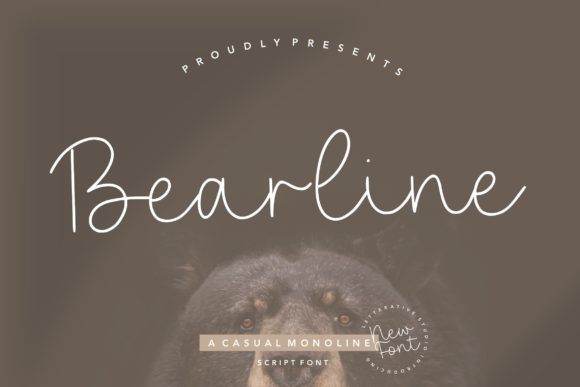
Bearline: A Modern Monoline Script Font for Creative and Professional Use
The Evolution of Script Fonts in Contemporary Design
In the ever-evolving world of typography, script fonts have remained a staple for their elegance and expressive potential. However, traditional script fonts often come with challengesāsuch as legibility issues or an overly ornate appearanceāthat can hinder their practical use in professional settings. Enter Bearline, a casual monoline script font that bridges the gap between classic calligraphy and modern design needs. With its clean lines and balanced form, Bearline offers a fresh take on script typography while maintaining the sophistication of handwritten styles.
Designed to be both versatile and readable, Bearline is ideal for a wide range of applicationsāfrom branding materials and website headers to personal stationery and educational resources. Its monoline structure ensures consistency across characters, making it easier to read at various sizes compared to more fluid, cursive scripts. This makes Bearline not only visually appealing but also functionally sound in real-world scenarios.
Key Characteristics of Bearline
At first glance, Bearline appears to be a simple script font, but a closer look reveals thoughtful design choices that contribute to its usability and aesthetic appeal. Here are some of its defining features:
- Casual yet Classy Style: Bearline captures the essence of handwritten text without sacrificing professionalism. It feels personal and approachable, yet refined enough for formal contexts.
- Monoline Structure: Unlike traditional script fonts that vary in stroke width, Bearline uses consistent line thickness throughout. This enhances readability and ensures visual harmony in any layout.
- Versatile Character Set: The font includes a comprehensive set of characters, accents, and symbols, supporting multiple languages and special typographic needs.
- Scalability: Whether used in small body text or large display headings, Bearline maintains its clarity and elegance, making it suitable for both print and digital media.
Applications of Bearline in Real-World Projects
Bearline's adaptability allows it to serve a variety of purposes across different industries. Letās explore how this font can be applied in practical scenarios:
Professional Branding and Marketing Materials
For businesses looking to create a brand identity that feels both modern and trustworthy, Bearline is an excellent choice. Its clean, uncluttered style works well for logos, business cards, and marketing collateral. For instance, a boutique hotel might use Bearline for its letterhead to convey a warm, inviting atmosphere while maintaining a polished look.
Additionally, Bearline can be used effectively in email signatures, social media posts, and promotional banners where a friendly yet professional tone is desired. Its ability to blend casual charm with contemporary design makes it a go-to option for creative professionals and entrepreneurs alike.
Personal and Stationery Use
Individuals who enjoy crafting personalized itemsāsuch as wedding invitations, thank-you notes, or custom greeting cardsāwill find Bearline to be a valuable asset. Its handwritten feel adds a personal touch, while its structured form ensures that even intricate designs remain legible and aesthetically pleasing.
Stationery designers, for example, can use Bearline to create unique layouts that stand out from mass-produced options. From journal covers to envelope seals, Bearline provides a sense of individuality that resonates with consumers seeking meaningful, handmade products.
Educational and Academic Resources
Teachers, professors, and academic institutions can benefit from using Bearline in educational materials. Its readability and elegant appearance make it suitable for titles of research papers, thesis documents, and course syllabi. Moreover, Bearline can be used in presentations and handouts to enhance visual appeal without distracting from the content.
In classrooms, Bearline can also be employed in student projects, encouraging creativity while ensuring that written work remains clear and professional. Its versatility supports both artistic expression and academic rigor.
Web and Digital Content Creation
In the digital space, Bearline is a powerful tool for web designers and content creators. Its compatibility with responsive design principles means it can be used effectively in headlines, navigation menus, and call-to-action buttons. Websites that aim to evoke a sense of warmth and approachabilityāsuch as lifestyle blogs, wellness platforms, or creative portfoliosācan leverage Bearline to establish a cohesive visual identity.
Additionally, Bearline integrates smoothly with other typefaces, allowing for layered typographic compositions that add depth and interest to web pages. Its performance on screens is optimized, ensuring that it looks great whether viewed on desktops, tablets, or mobile devices.
Considerations When Using Bearline
While Bearline is highly versatile, there are a few considerations to keep in mind when selecting it for a project:
- Legibility at Small Sizes: Although Bearline is designed for readability, it may not be the best choice for very small text sizes where fine details could become less visible. In such cases, pairing it with a sans-serif font for body text is recommended.
- Contrast with Backgrounds: As with any script font, Bearline should be used on backgrounds that provide sufficient contrast. Dark text on light backgrounds or vice versa will ensure maximum legibility and visual impact.
- Consistency in Layouts: To maintain a professional appearance, it's important to use Bearline consistently throughout a design. Avoid mixing it with too many other fonts unless it serves a specific stylistic purpose.
Why Bearline Stands Out Among Script Fonts
In a market saturated with script fonts, Bearline distinguishes itself through its balance of simplicity and sophistication. While many script fonts lean heavily into ornate, flowing strokes that can be difficult to read, Bearline adopts a more structured approach that prioritizes clarity without compromising on style.
This makes Bearline particularly appealing to users who seek a font that can perform well in both creative and functional contexts. Whether you're designing a logo, writing a letter, or creating a website, Bearline offers a reliable solution that meets the demands of diverse audiences and industries.
Its ease of use, combined with its visual appeal, positions Bearline as a font that can elevate any projectāwhether it's a small personal endeavor or a large-scale professional campaign. By choosing Bearline, designers and creators can confidently bring their ideas to life with a font that is both stylish and effective.